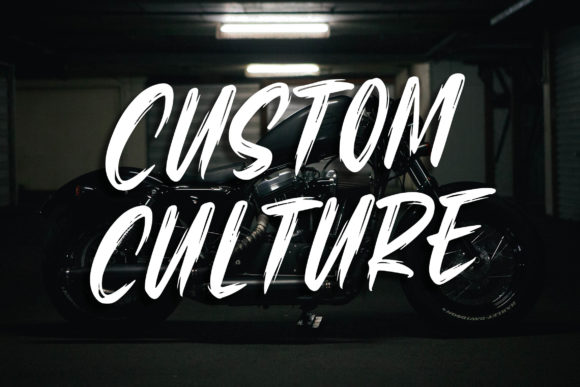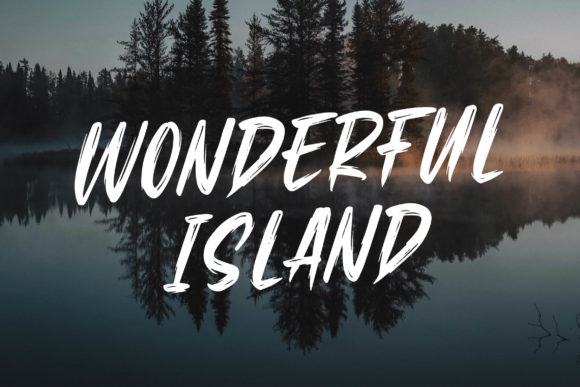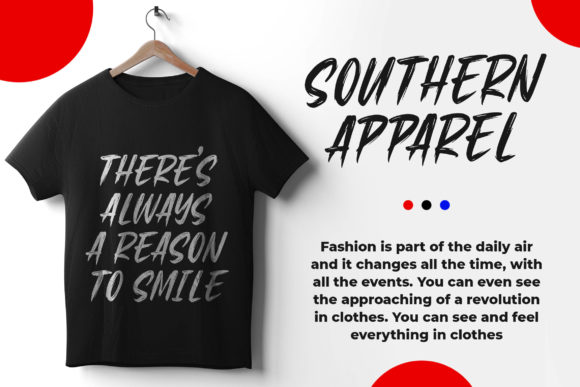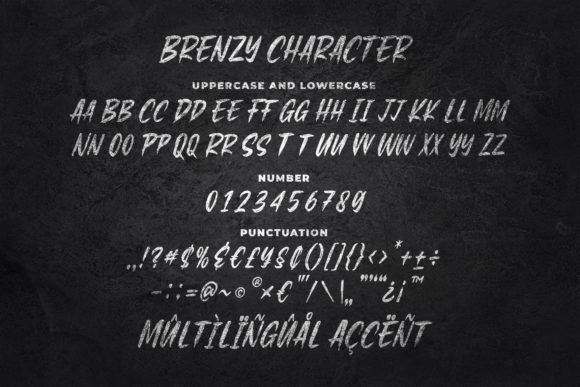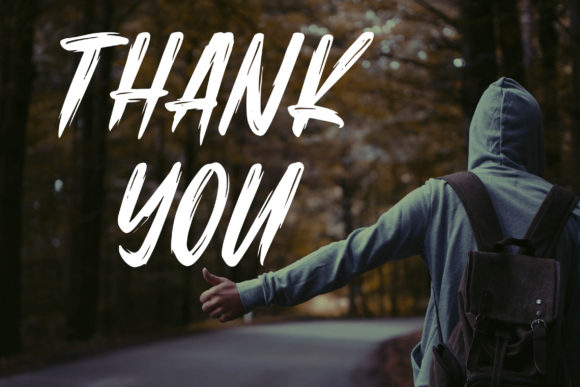
Brenzy Font: Elevate Your Designs with a Unique and Personalized Touch
In the world of design, fonts play a crucial role in conveying the message and aesthetic of a project. With thousands of fonts available, finding the perfect one that stands out from the crowd can be a daunting task. However, if you’re looking for a font that exudes personality and excitement, look no further than Brenzy Font. In this article, we’ll dive into the world of Brenzy Font, exploring its unique style, features, and uses, as well as provide tips on how to make the most of this exciting display font.
What is Brenzy Font?
Brenzy Font is an exciting display font designed to add a personalized touch to any design project. With its unique style, Brenzy Font is perfect for designers and crafters looking to create visually stunning and distinctive designs. Whether you’re working on a logo, branding project, social media graphics, or website design, Brenzy Font is sure to make your project stand out.
Key Features of Brenzy Font
So, what makes Brenzy Font so special? Here are some of its key features:
- Unique Style: Brenzy Font boasts a one-of-a-kind design that is sure to grab attention. Its distinctive style sets it apart from other fonts, making it perfect for projects that require a personalized touch.
- Display Font: Brenzy Font is specifically designed as a display font, making it ideal for headlines, titles, and other prominent text elements.
- Versatility: Despite its unique style, Brenzy Font is surprisingly versatile. It can be used for a wide range of design projects, from logos and branding to social media graphics and website design.
Uses of Brenzy Font
So, how can you use Brenzy Font in your design projects? Here are some ideas to get you started:
- Logo Design: Brenzy Font is perfect for creating unique and memorable logos that stand out from the competition.
- Branding: Use Brenzy Font to create a consistent brand identity across all your marketing materials, from business cards to billboards.
- Social Media Graphics: Add a touch of personality to your social media graphics with Brenzy Font. It’s perfect for creating eye-catching posts and stories.
- Website Design: Use Brenzy Font to create stunning website headers, titles, and other prominent text elements.
Tips for Using Brenzy Font
To make the most of Brenzy Font, here are some tips to keep in mind:
- Use it sparingly: Brenzy Font is a bold and attention-grabbing font. Use it sparingly to avoid overwhelming your design.
- Pair it with other fonts: Experiment with pairing Brenzy Font with other fonts to create a unique and visually appealing combination.
- Experiment with colors: Don’t be afraid to experiment with different colors and textures to add depth and interest to your design.
In conclusion, Brenzy Font is an exciting display font that is sure to elevate your designs with its unique style and personalized touch. With its versatility, range of uses, and tips for making the most of it, Brenzy Font is a must-have for designers and crafters looking to create visually stunning and distinctive designs. So why wait? Download Brenzy Font today and take your designs to the next level!
- Brenzy Font is a unique and exciting display font perfect for designers and crafters.
- It boasts a distinctive style that sets it apart from other fonts.
- Brenzy Font is versatile and can be used for a wide range of design projects.
- Use it sparingly, pair it with other fonts, and experiment with colors to make the most of Brenzy Font.